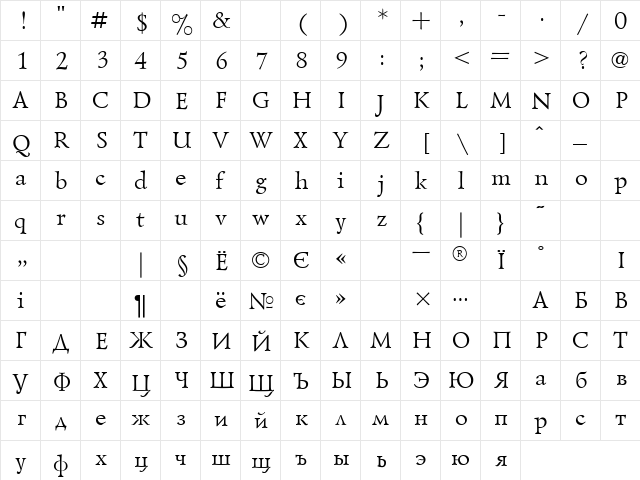
UkrainianGoudyOld Regular
Design Context for UkrainianGoudyOld Typeface
UkrainianGoudyOld is a composed and adaptable typeface that performs quietly and consistently across a wide range of design contexts.